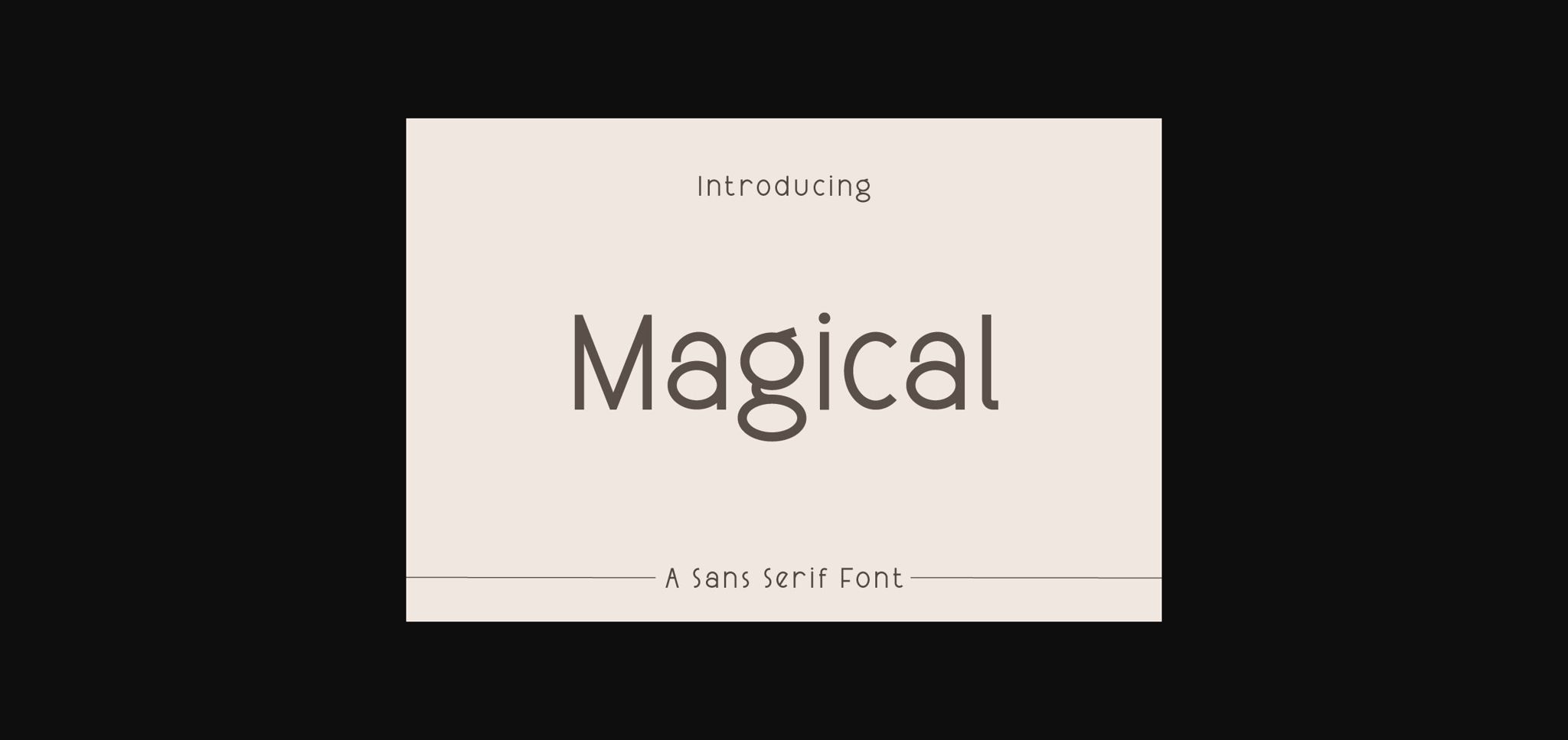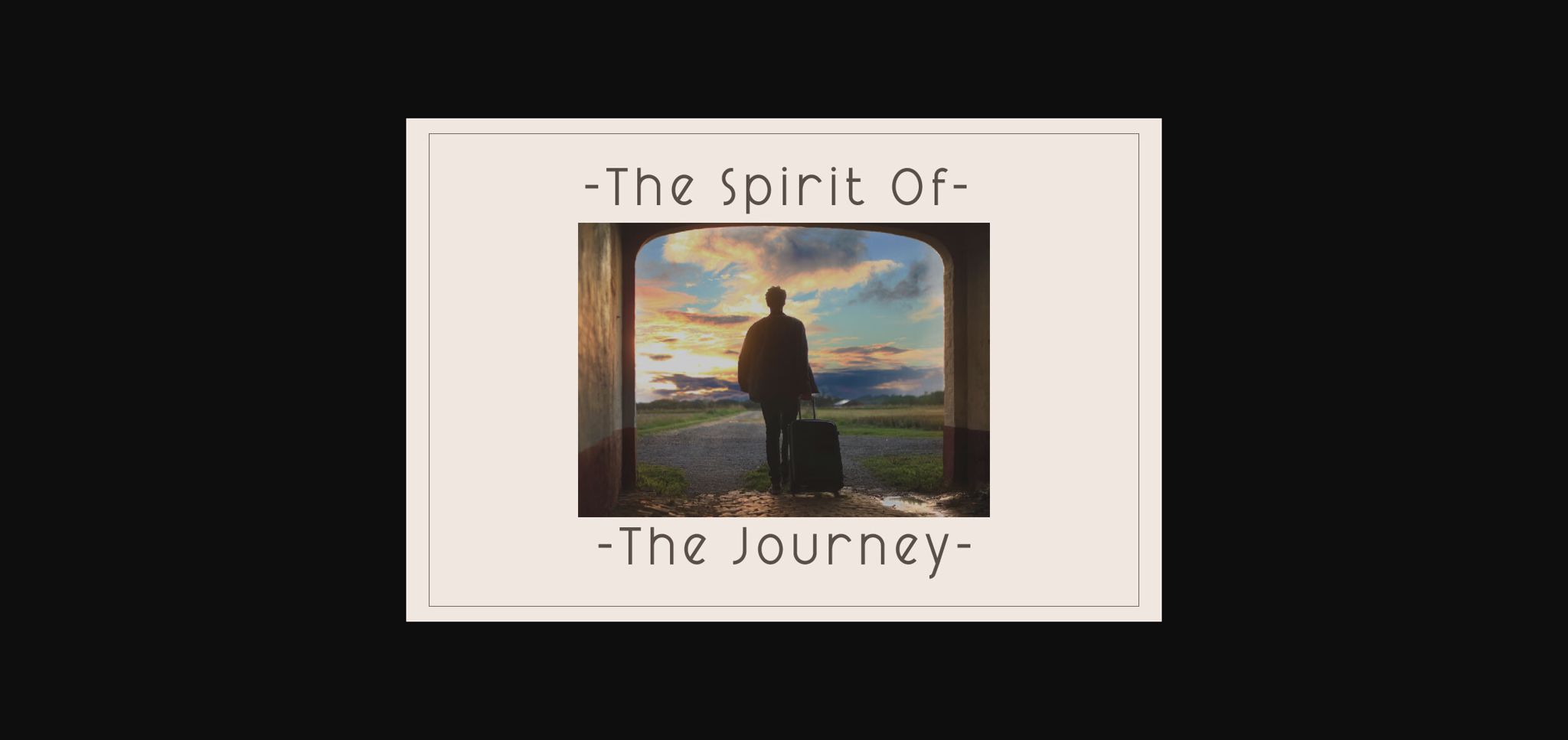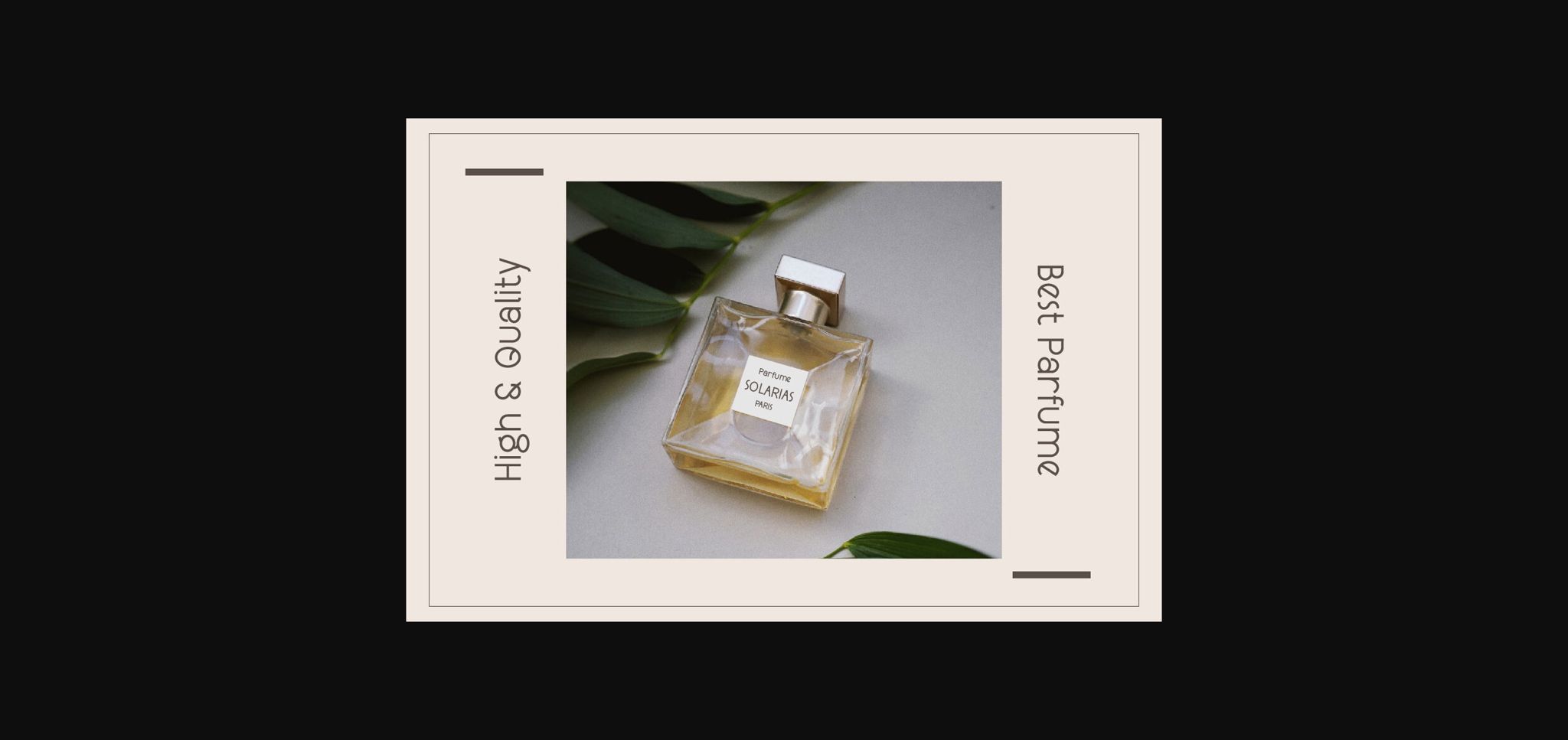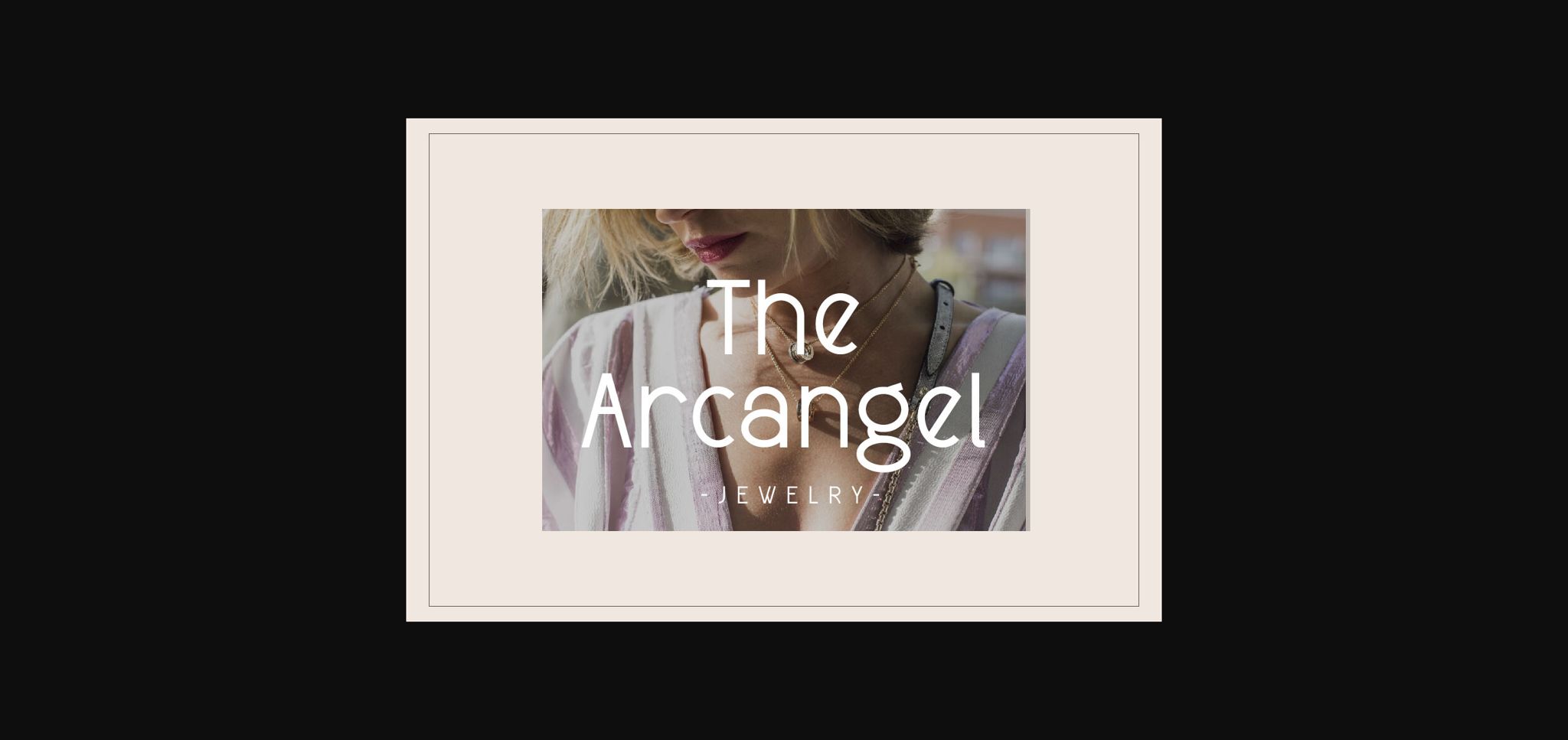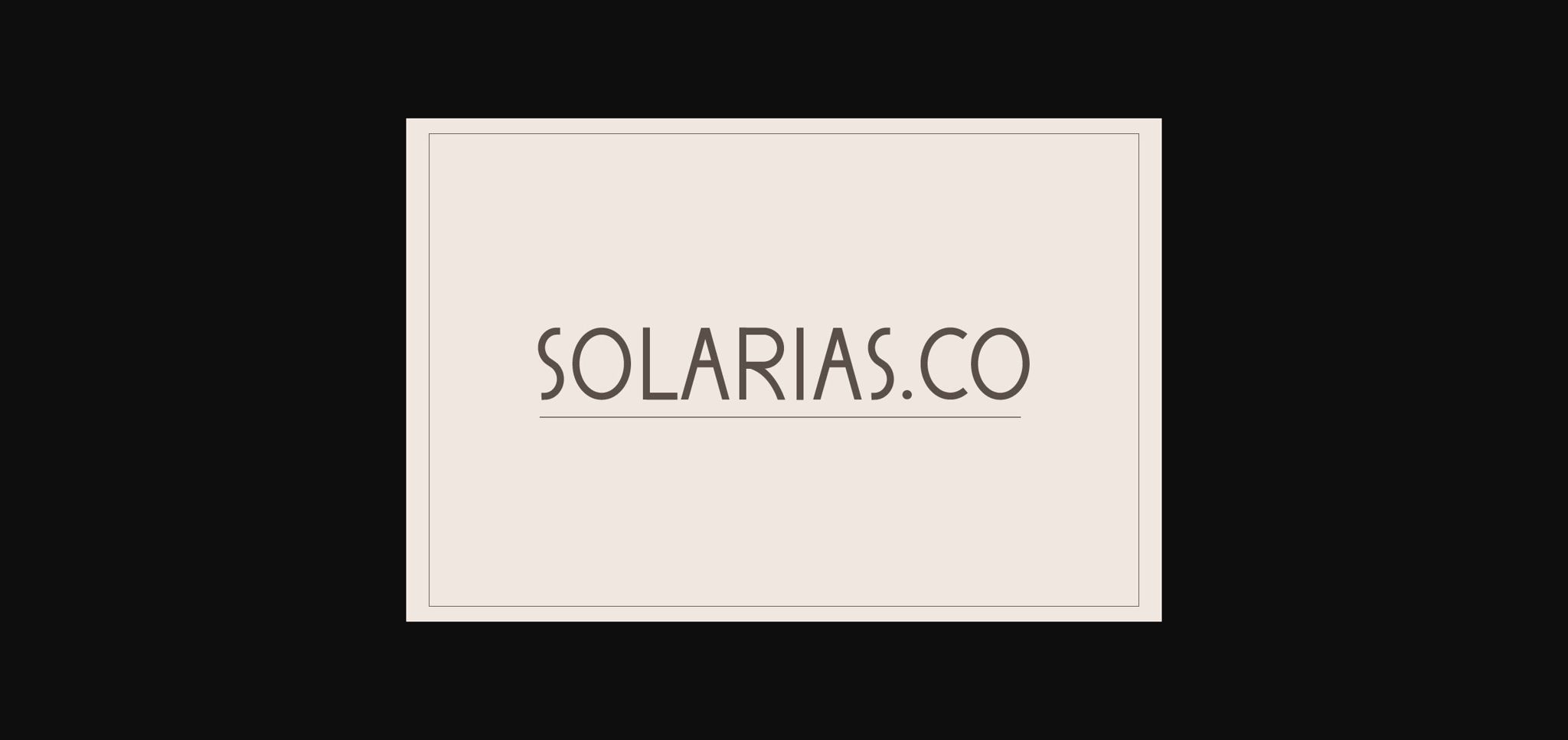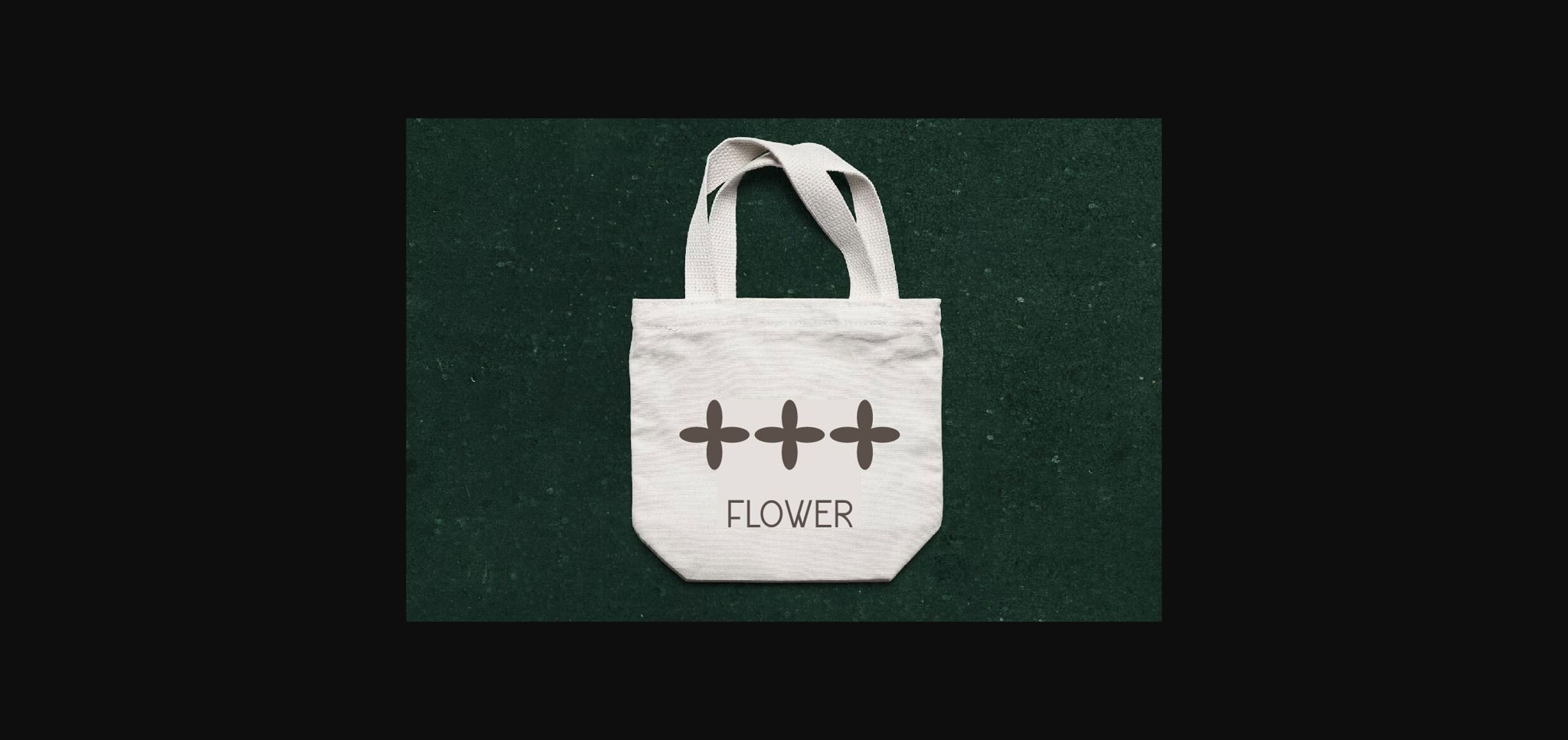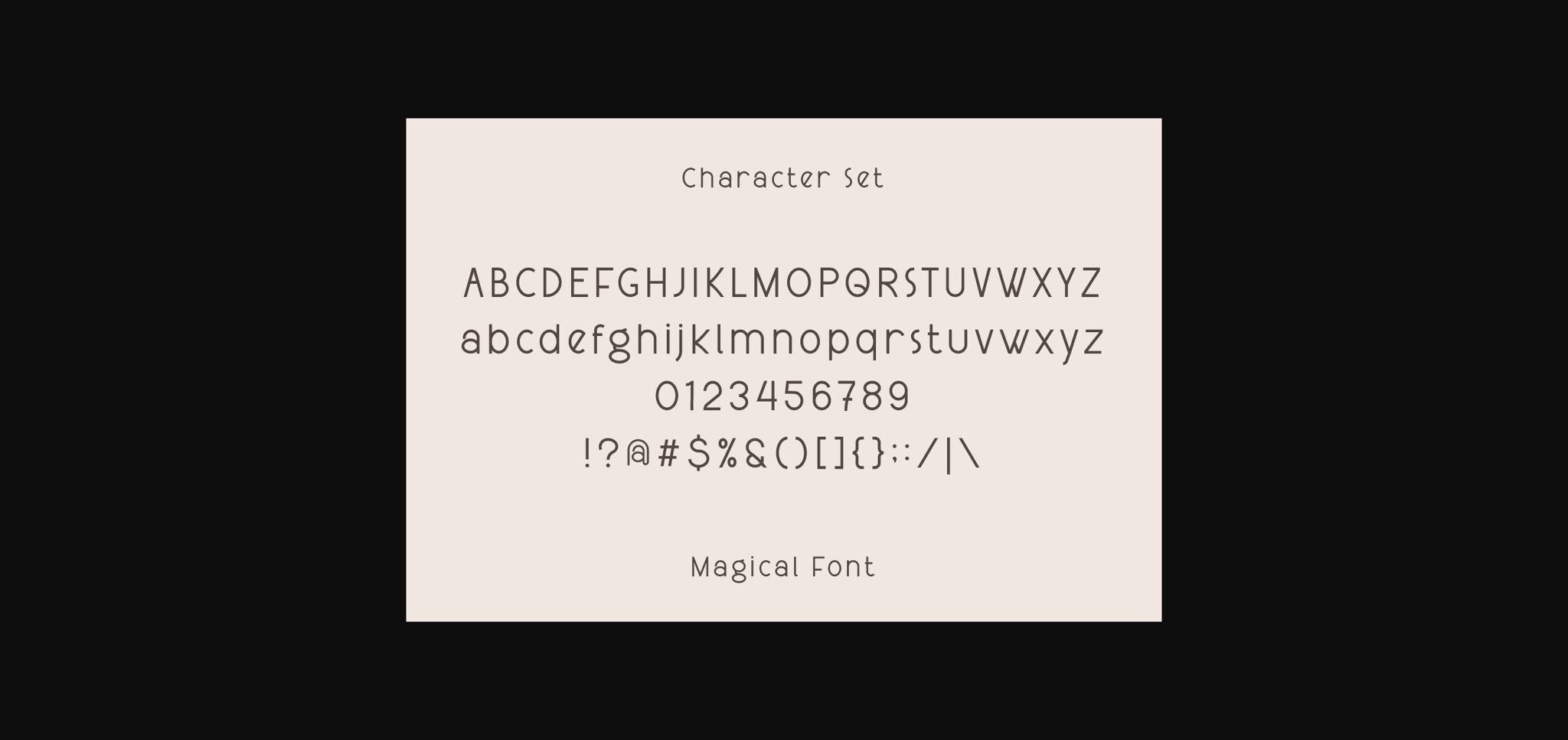
Magical Font
About Magical Font
Magical is an elegant and versatile sans-serif font that will make your typography truly unique. This font is perfect for branding projects, skincare products, headlines, tote bags, quotes, t-shirt designs, home-ware designs, product packaging, magazine covers, logos, branding– or simply as a stylish text overlay to any background image.